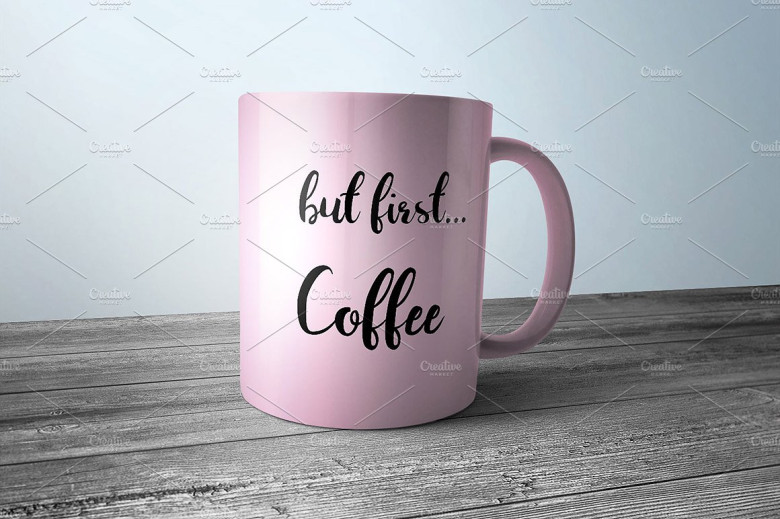
Juanita Script Font
Introducing Juanita Script Font! Juanita Script designed by Webcodesigns. Juanita Brush Script is a hand-crafted brush font that comes in two styles, smooth and rough. With this imperfect hand-written brush font your next project can achieve the hand-crafted look that is ever so popular right now.